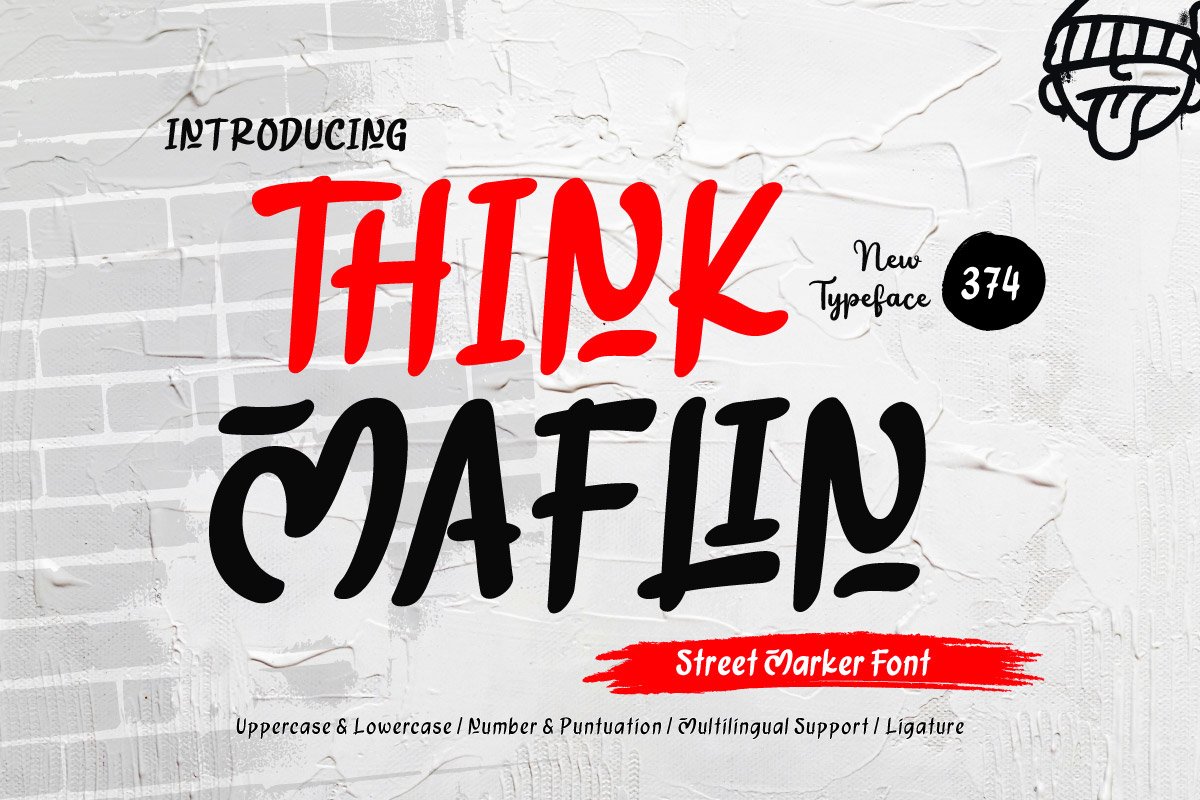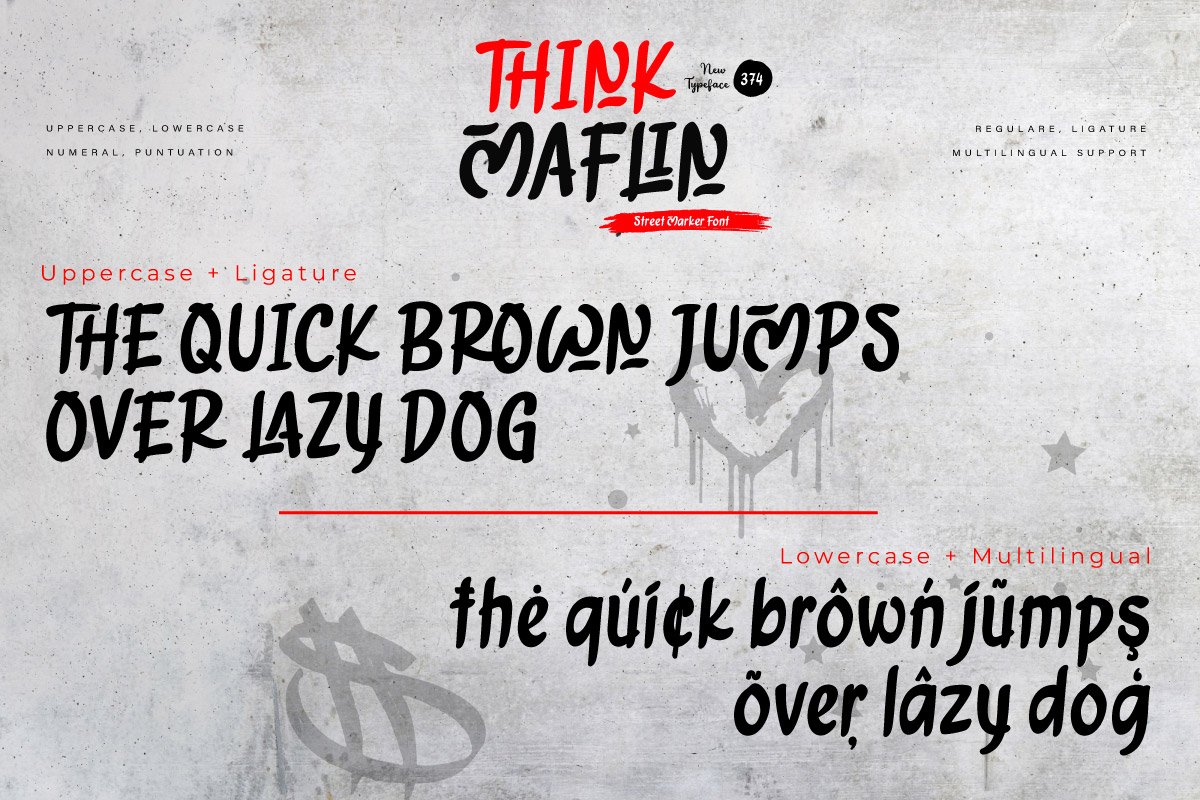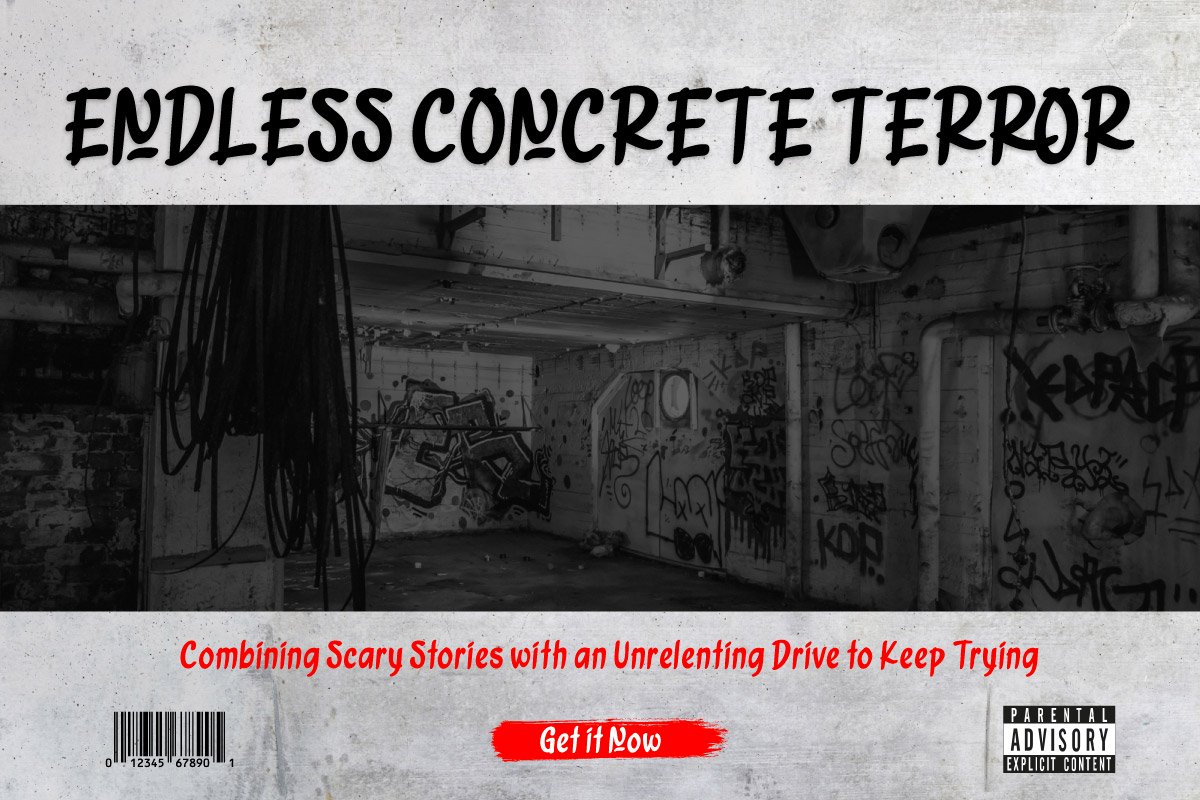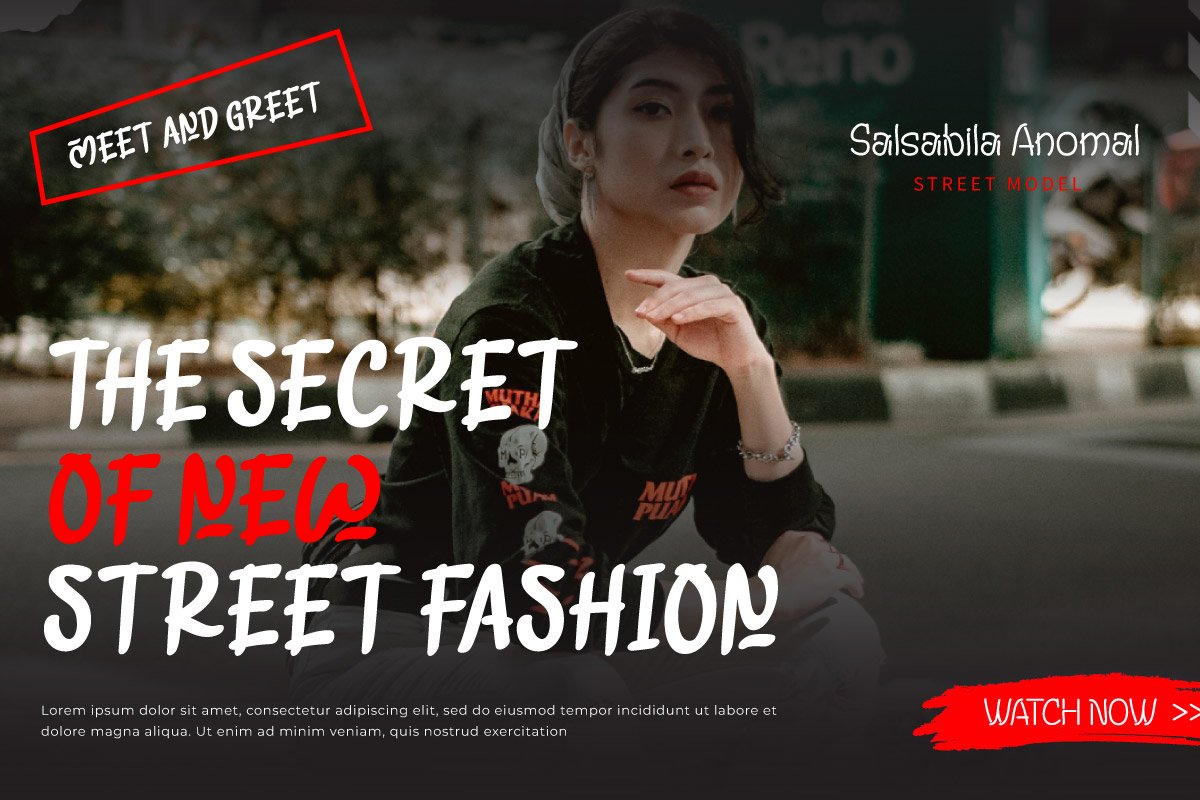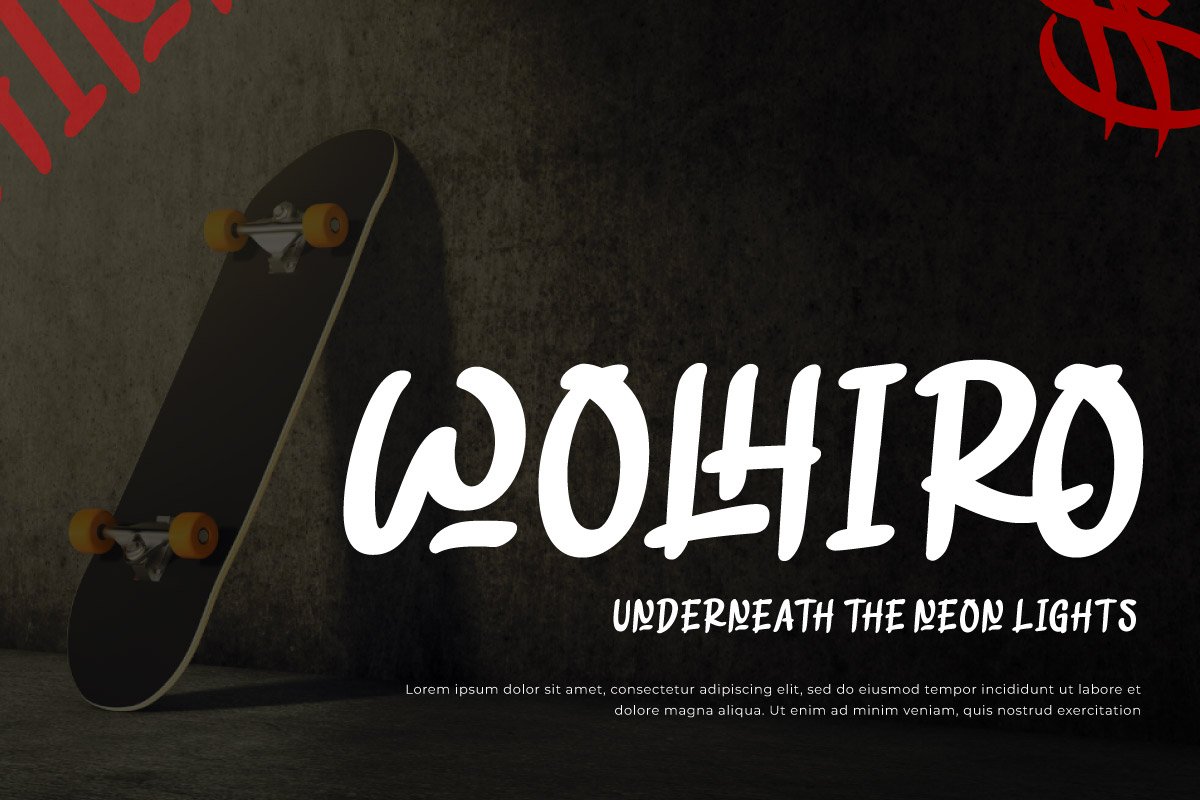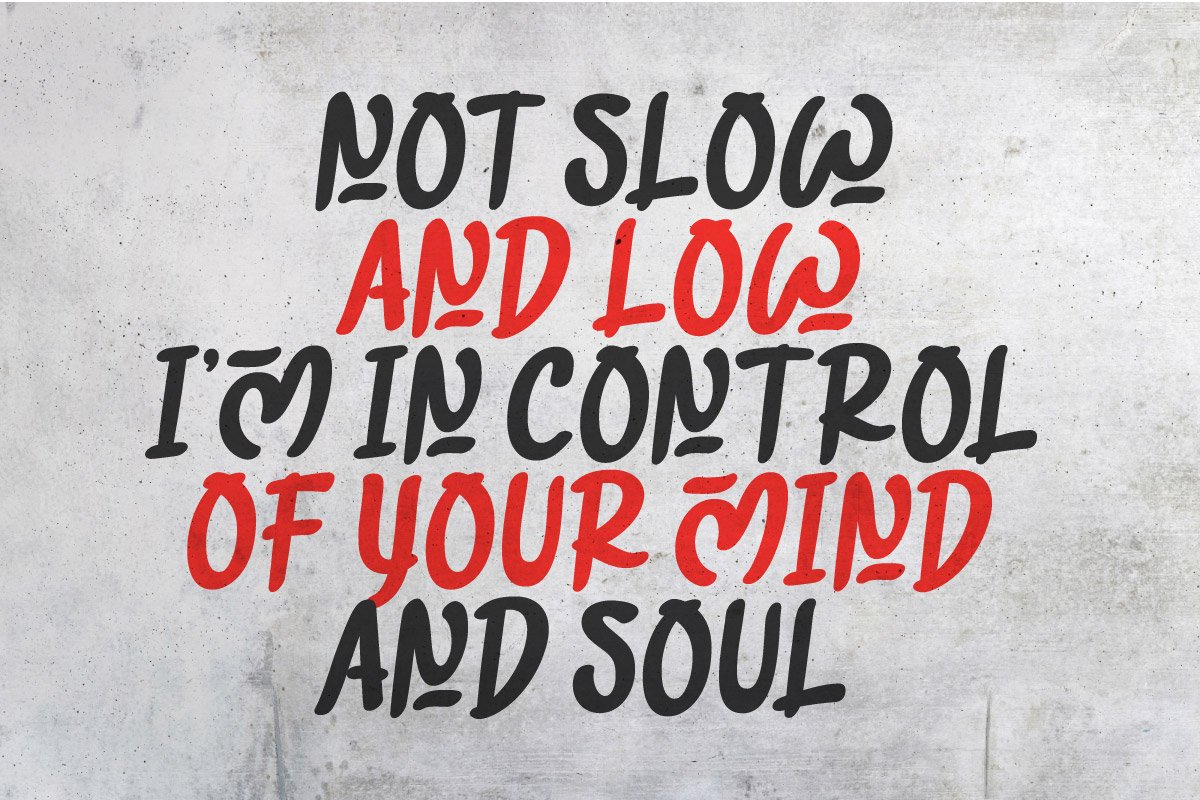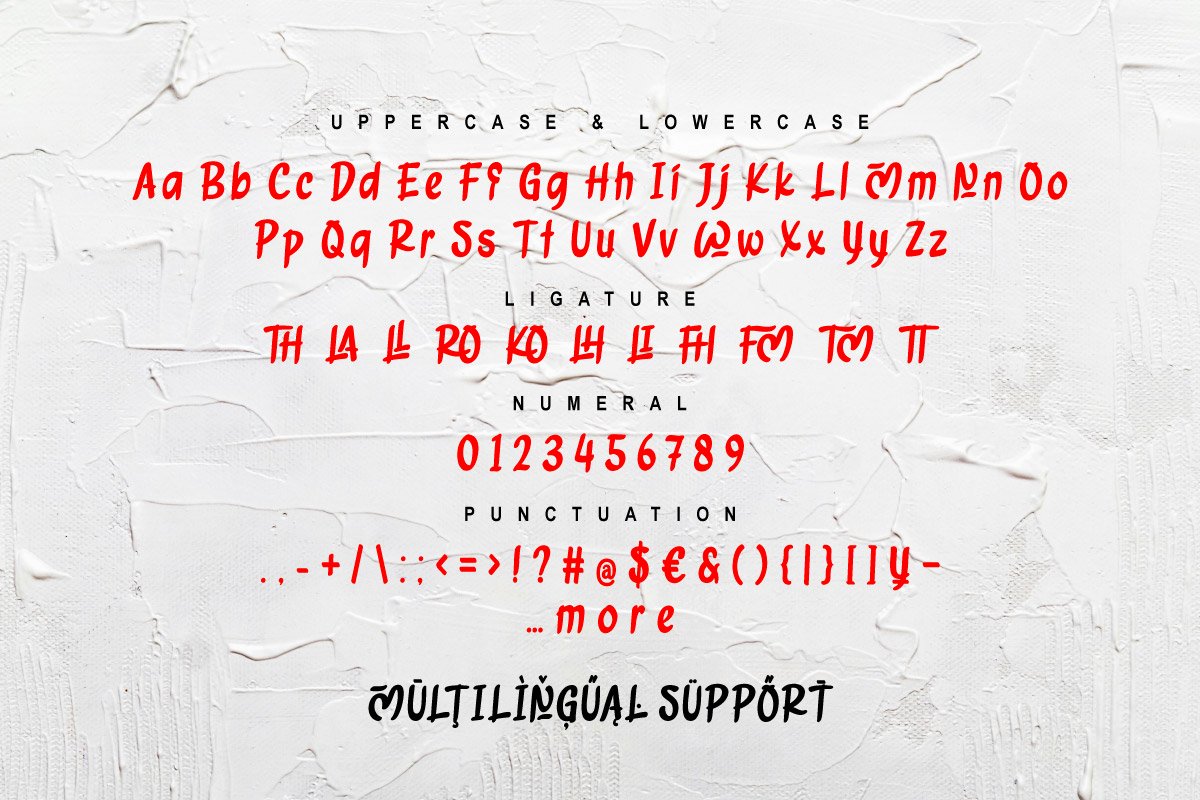
Think Maflin – Street Marker Font
Think Maflin is a street marker font that embodies bold creativity and raw urban expression. Its dynamic strokes and free-flowing design make it the perfect choice for projects that want to stand out with confidence and originality. Whether you’re working on posters, branding, cover designs, or digital artworks, Think Maflin adds a fearless and modern touch.
With uppercase, lowercase, numbers, punctuation, ligatures, and multilingual support, this font offers flexibility and style for a wide range of creative applications. Think Maflin is designed to amplify your message with a strong and authentic street-inspired vibe.